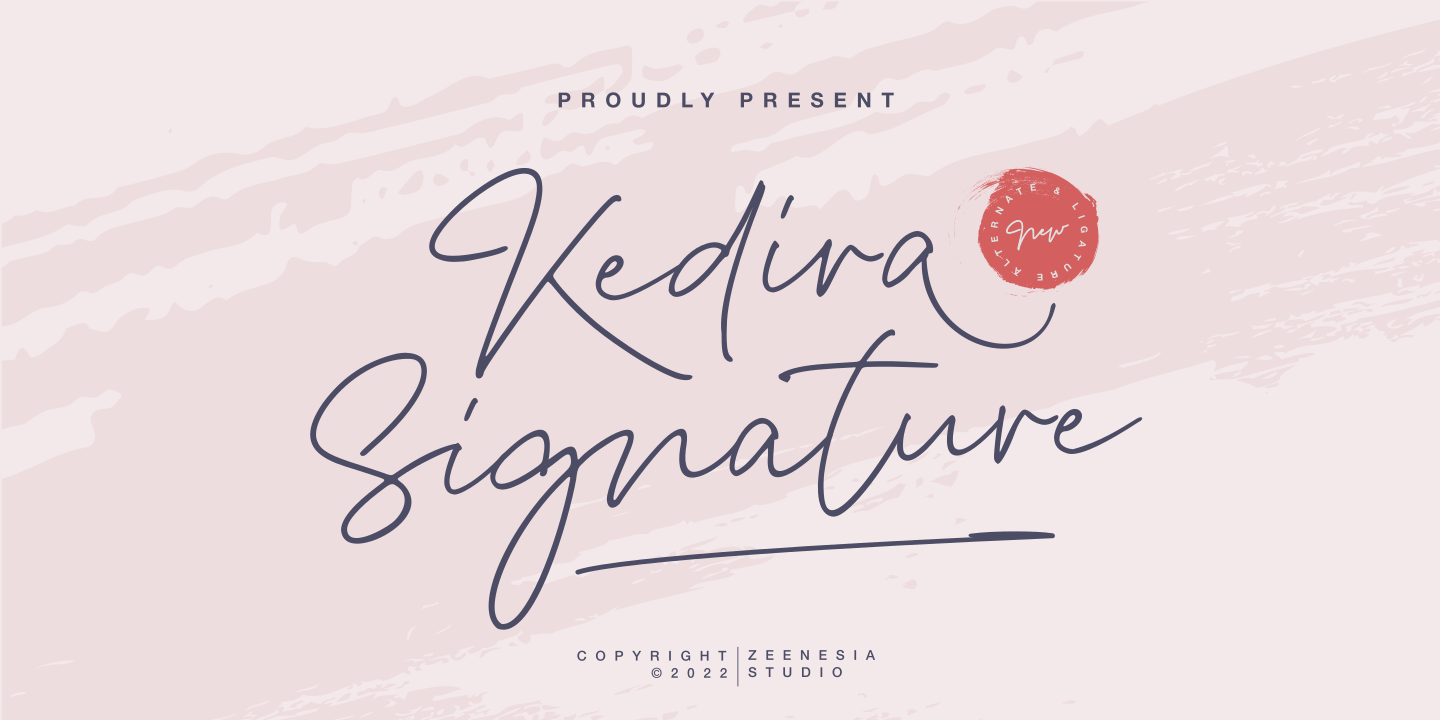
Kedira Signature Font is perfect for personal branding materials, exclusive autograph collections, luxury brand endorsements, celebrity signature campaigns, premium product authentications, high-end legal documents, distinguished certificate designs, and prestigious signature applications.
This elegant script typeface is exciting because it captures the personal authenticity and exclusive character of handwritten signatures through flowing letterforms that convey individual personality and the prestigious value of authentic personal endorsement.
The Kedira Signature Font family includes regular and ornamental weights with signature alternates, personal decorative elements, and autograph-inspired flourishes that enhance the authentic, exclusive atmosphere of any signature-focused design project.
Personal and prestigious, Kedira Signature Font Free Download brings the intimate authenticity and exclusive value of personal signatures to contemporary typography through genuine handwritten character. This distinguished font embodies the personal connection and individual authenticity that makes signatures so powerful in establishing trust and personal brand identity, making it essential for professionals and celebrities who understand that a signature represents more than a name—it represents personal commitment and authentic endorsement. Its flowing character reflects the unique personality and individual style that makes each signature distinctive and valuable, resonating with audiences who appreciate personal authenticity and the exclusive nature of genuine endorsements. Perfect for luxury brands and personal branding specialists, this font ensures your message carries the signature authenticity and personal credibility that discerning audiences expect from genuine personal endorsements. Whether used for celebrity campaigns or executive communications, Kedira Signature Font Free Download delivers the personal authenticity and signature prestige that connects with people who understand the value of authentic personal endorsement and individual character in building lasting professional relationships.